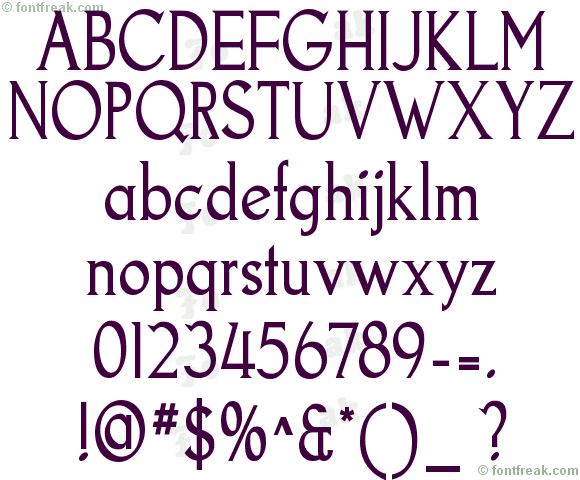
Goodfish
Goodfish Bold
Goodfish Italic
Goodfish Bold Italic
Goodfish, designed by Ray Larabie in 2000, is a versatile display font that captures attention with its unique blend of boldness and elegance. This freeware font features a distinct serif style, characterized by its thick strokes and pronounced contrast, making it ideal for various creative applications. The letterforms exhibit a playful yet sophisticated aesthetic, with well-defined serifs that add a touch of flair without overwhelming the viewer. Goodfish's spacing is thoughtfully balanced, ensuring clarity and readability even at larger sizes.
This font is particularly well-suited for use cases such as wedding invitations, where its charming yet formal character can enhance the overall design. Additionally, it works wonderfully for movie posters, lending an air of creativity and boldness that attracts attention. Restaurant menus can benefit from Goodfish's unique style, making dish names stand out while maintaining an inviting ambiance. Graphic designers will find it an excellent choice for branding projects, as it conveys a sense of personality that resonates with audiences.
What sets Goodfish apart is its ability to balance whimsy and professionalism. This font is not just another typeface; it embodies a unique character that can enhance visual storytelling. Whether used in print or digital formats, Goodfish’s engaging design invites viewers to explore further, making it a valuable asset in any designer's toolkit.